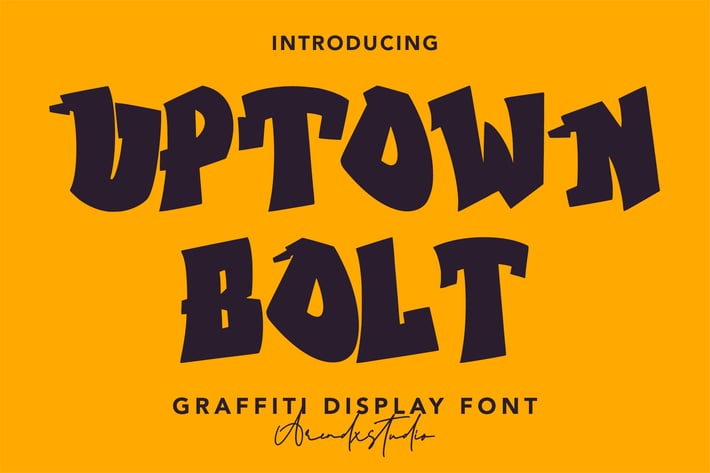
Uptown Bolt - Graffity Font
Uptown Bolt - Graffity Font is a display font that is inspired by gothic and horror style because its shape is very unique and is perfect for any project that you will use with this theme.
Uptown Bolt - Graffity Font with opentype features such stylistic alternates, stylistic sets & ligatures good for logotype, poster, badge, book cover, tshirt design, packaging and any more.